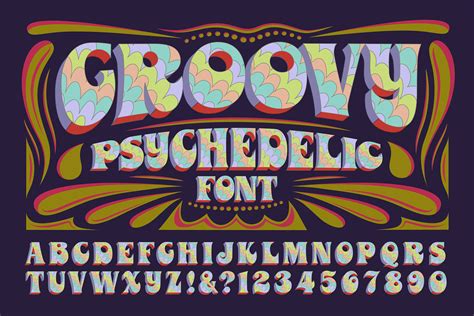
Create Psychedelic Fonts In Photoshop: A Groovy Guide
Create Psychedelic Fonts in Photoshop: A Groovy Guide
Hey guys! Are you ready to take a trip back to the far-out 60s and 70s? Or maybe you just want to add some vibrant, eye-catching flair to your designs? Well, you’ve come to the right place! In this guide, we’re diving deep into the world of psychedelic fonts in Photoshop . We’ll explore how to create them, customize them, and use them to make your projects pop. Get ready to unleash your inner artist and transform your text into mind-bending masterpieces!
Understanding Psychedelic Fonts
Psychedelic fonts are more than just a typeface; they’re a visual experience. Drawing inspiration from the psychedelic art movement of the 1960s and 70s, these fonts are characterized by their vibrant colors, swirling shapes, and overall sense of trippy, dreamlike distortion. Think lava lamps, tie-dye, and the Beatles’ “Yellow Submarine” – that’s the vibe we’re going for!
These fonts often feature: High contrast color combinations, such as neon greens and electric blues, are common. Expect to see gradients and color blends that create a sense of depth and movement. Distorted letterforms where letters might be stretched, warped, or otherwise altered to create a sense of fluidity and motion. Ornate details: Many psychedelic fonts incorporate intricate patterns, swirls, and decorative elements that add to their visual complexity. A sense of movement, whether it’s through wavy lines, radiating patterns, or the illusion of depth, is key. Why are psychedelic fonts so popular? They evoke a sense of nostalgia, capturing the spirit of a bygone era. They’re attention-grabbing, making them perfect for posters, album covers, and other designs that need to stand out. These fonts are versatile and can be used in a variety of contexts, from retro-themed designs to modern, experimental projects. Now that we’ve got a good grasp of what psychedelic fonts are all about, let’s dive into how to create them in Photoshop.
Setting Up Your Photoshop Canvas
Before we start bending and twisting letters, we need to set up our Photoshop canvas. This ensures we have a suitable space to work in and that our final design looks crisp and clear. Here’s a step-by-step guide:
1. Create a New Document : Open Photoshop and go to File > New . A new document window will pop up, prompting you to enter the dimensions for your canvas. For web-based projects, a resolution of 72 DPI (dots per inch) is usually sufficient. However, if you plan to print your design, a resolution of 300 DPI is recommended for sharper, more detailed results. Set the width and height according to your project’s needs. A good starting point might be 1920x1080 pixels, which is a standard HD resolution, but feel free to adjust as necessary. Also, choose an appropriate color mode. RGB is standard for digital work, while CMYK is used for print projects. Make sure your background color is something that contrasts well with the colors you plan to use for your font, as this will help you see the effects more clearly as you work. Once you’ve configured these settings, click the Create button to open your new canvas.
2. Add a Background : A vibrant background can enhance the psychedelic effect. Use the Gradient Tool to create a colorful gradient. Click on the Gradient Tool icon in the toolbar (it looks like a fading color square). At the top of the screen, you’ll see a gradient editor. Click on it to open the Gradient Editor window. Here, you can choose from preset gradients or create your own by clicking on the color stops below the gradient bar. For a psychedelic look, try using a combination of bright, contrasting colors like pink, blue, yellow, and green. Once you’ve selected your colors, click and drag on your canvas to apply the gradient. Experiment with different angles and lengths to see how they affect the appearance of the gradient. Alternatively, you can fill the background with a solid color or use a texture for added depth.
3. Type Your Text : Select the Type Tool (the “T” icon) and click on your canvas to add a text layer. Choose a bold, rounded font for a classic psychedelic look. Fonts like Impact, Cooper Black, or even a custom bubble letter font can work well. Type in your desired text. Adjust the font size and color in the Character panel (Window > Character). A larger font size makes it easier to apply effects, and a bright, contrasting color will help your text stand out against the background. Experiment with different fonts to find one that suits your style. Consider fonts that have thick strokes and rounded edges, as these tend to look better with the effects we’ll be applying later.
By following these steps, you’ll have a well-prepared canvas ready to bring your psychedelic font dreams to life. Remember, the key to a great design is experimentation, so don’t be afraid to try different settings and techniques until you achieve the look you want.
Creating the Psychedelic Effect
Alright, now for the fun part! We’re going to take that plain text and transform it into a swirling, mind-bending masterpiece. Here’s how:
1. Rasterize Your Text Layer : Before we can apply most of the effects, we need to rasterize the text layer. This converts the text into a pixel-based image, allowing us to manipulate it more freely. Right-click on your text layer in the Layers panel and select “Rasterize Type”. Keep in mind that once you rasterize the text, you won’t be able to edit the text itself, so make sure you’re happy with the spelling and font choice before proceeding.
2. Apply Distort Filters : This is where the magic happens! Photoshop has a variety of distort filters that can warp and twist your text in amazing ways. Go to Filter > Distort and experiment with different options like: Wave, Twirl, Ripple, and Shear. The Wave filter adds a wavy distortion to your text. Adjust the number of generators, wavelength, and amplitude to create different wave patterns. The Twirl filter rotates the pixels around the center of your selection. Experiment with different angles to create swirling effects. The Ripple filter adds a rippling effect to your text, like looking at it through water. Adjust the amount and size of the ripples to achieve different levels of distortion. The Shear filter allows you to drag points on a curve to distort the text. This gives you precise control over the shape of the distortion. Try combining multiple distort filters for even more complex effects. For example, you could apply a wave filter followed by a twirl filter to create a swirling, wavy text effect. Don’t be afraid to experiment and see what works best for your design. Each filter can be applied multiple times with slightly different settings to build up the psychedelic effect.
3. Add Color and Gradients : Now, let’s pump up the color! Use layer styles to add gradients, color overlays, and other effects. Double-click on your rasterized text layer to open the Layer Style window. Here are a few options to try: Gradient Overlay: Add a gradient that spans across your text. Experiment with different color combinations and blending modes to create unique effects. Color Overlay: Apply a solid color to your text. Adjust the opacity to blend the color with the underlying texture. Inner Glow/Outer Glow: Add a glow around the edges of your text. Experiment with different colors, sizes, and opacities to create a vibrant aura. Try using bright, contrasting colors for a psychedelic look. For example, you could use a gradient that fades from neon green to electric blue or a color overlay of bright pink with an outer glow of yellow. Experiment with different blending modes to see how they affect the colors. Blending modes like Overlay, Screen, and Multiply can create interesting and unexpected results. You can also add multiple layer styles to your text to create more complex effects. For example, you could add a gradient overlay, a color overlay, and an outer glow to create a layered, vibrant effect.
Conclusion
Creating psychedelic fonts in Photoshop is a fun and rewarding way to add a touch of retro flair to your designs. By following the steps outlined in this guide and experimenting with different filters, colors, and blending modes, you can create unique and eye-catching fonts that will make your projects stand out from the crowd. So go ahead, unleash your inner artist, and start creating some mind-bending masterpieces! Have fun, and remember there are no hard and fast rules.